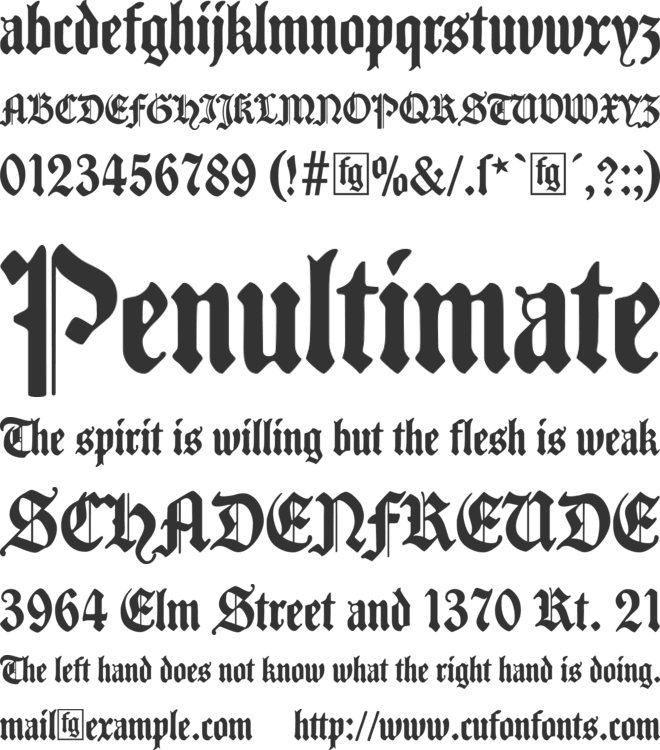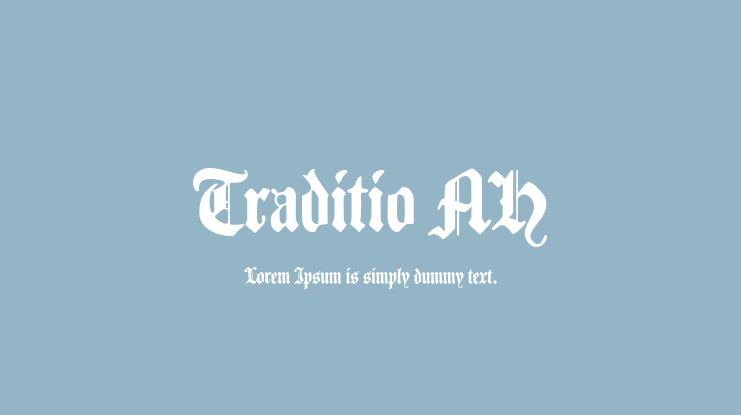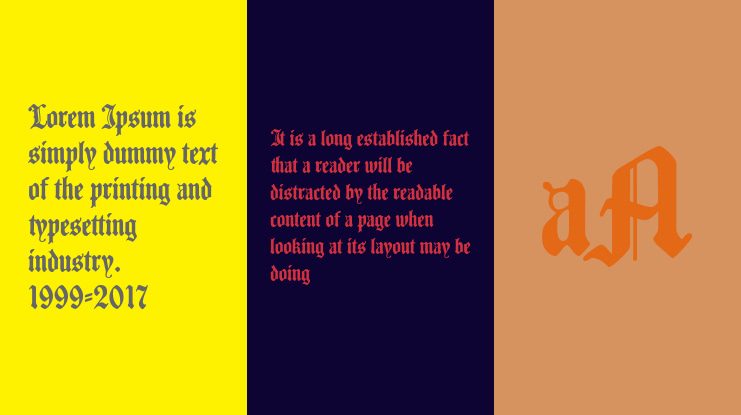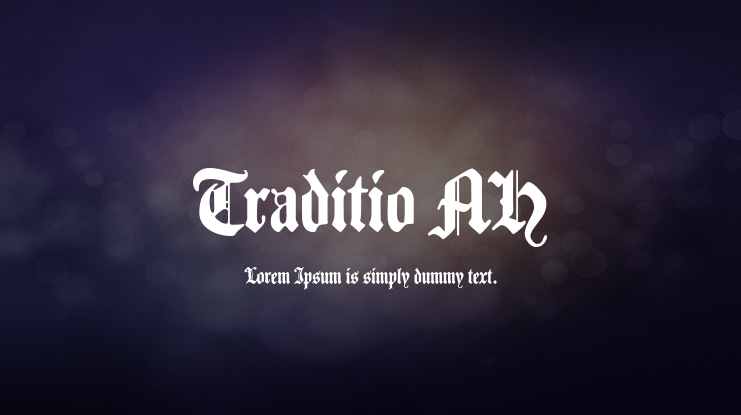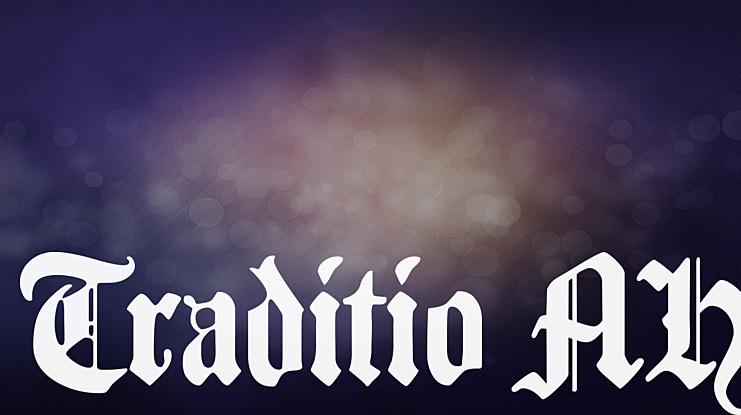
Based on German beer advertising, this typeface in the style of a 19th century Textura ("Old English") was elaborated in 2007-2013 by Andreas Höfeld (Fontgrube). Its uppercase characters are often close to the familiar forms of Latin Antiqua letters, which makes it more legible for modern readers. "Traditio" ist the Latin word for "Tradition", a word taken from the sample that inspired this font.For professional purposes there is a full version available with additional characters and the swash r and s.